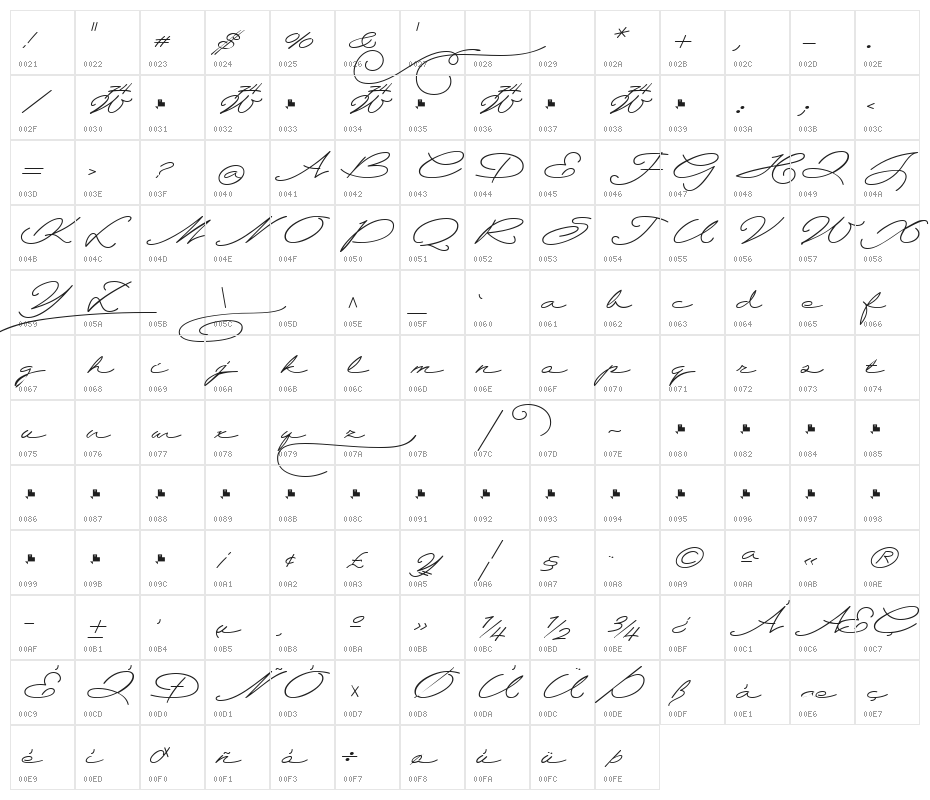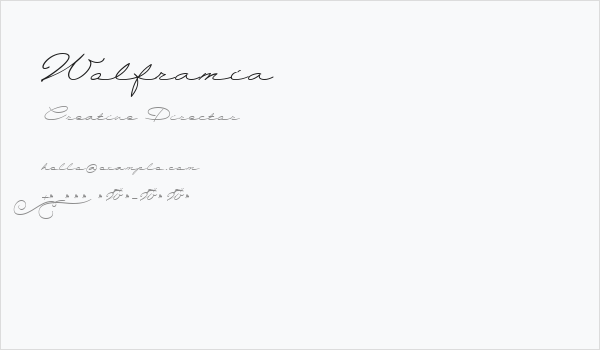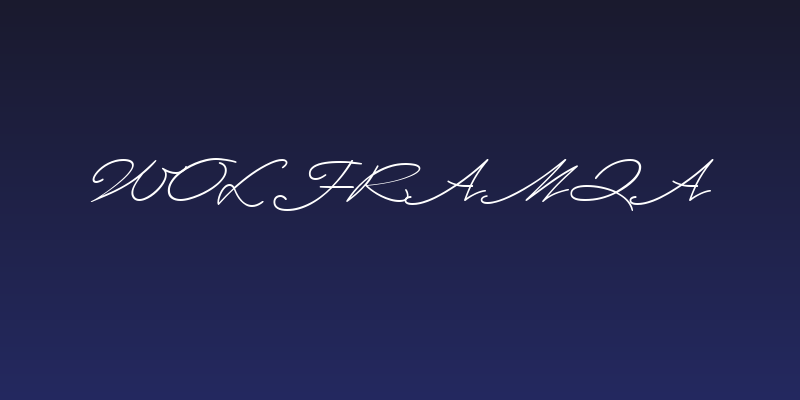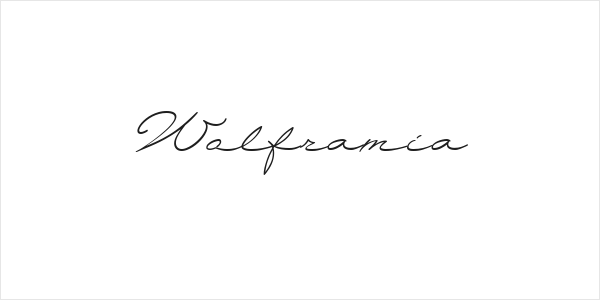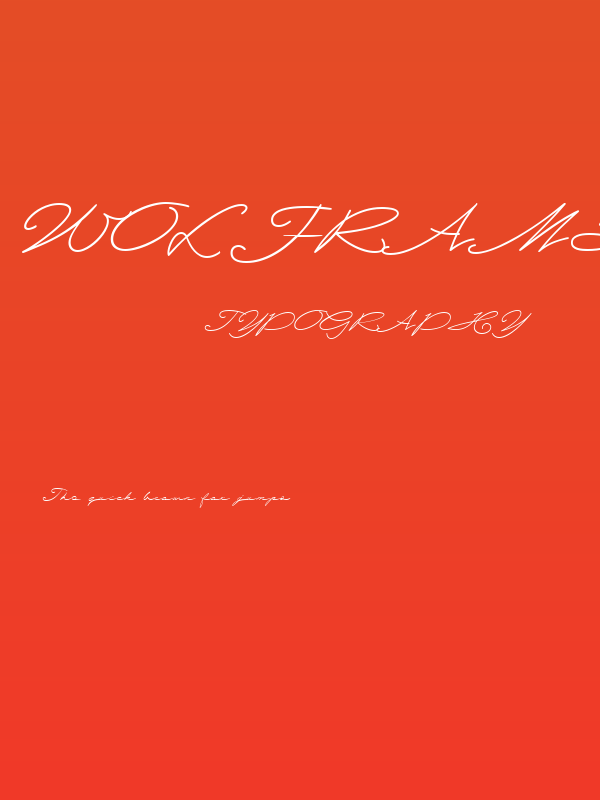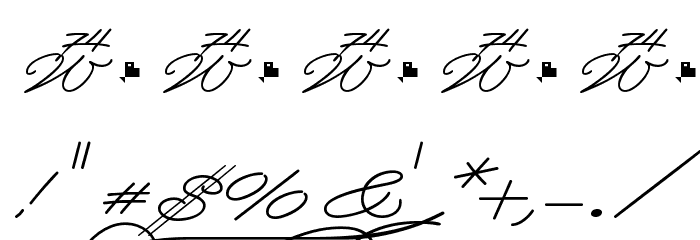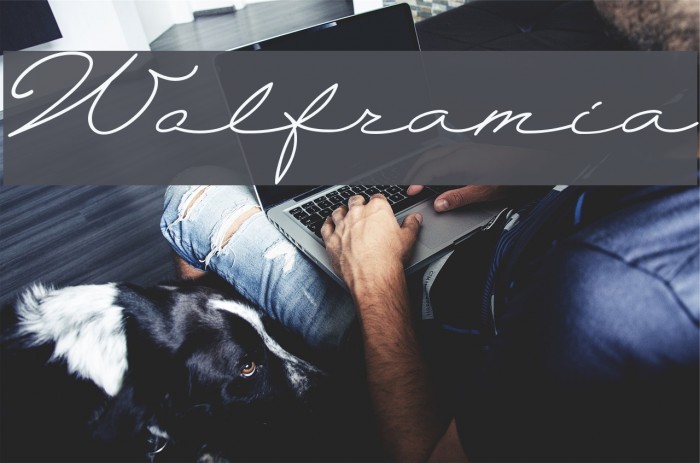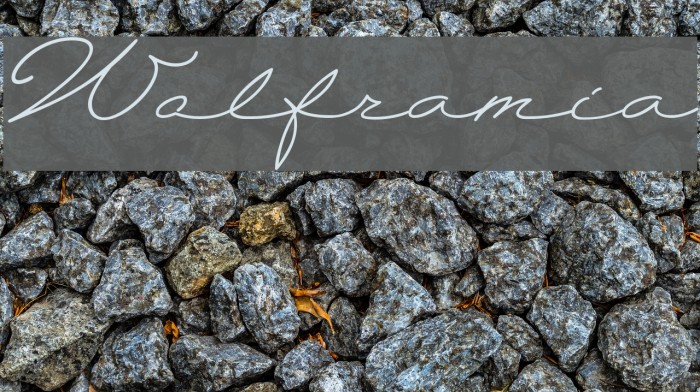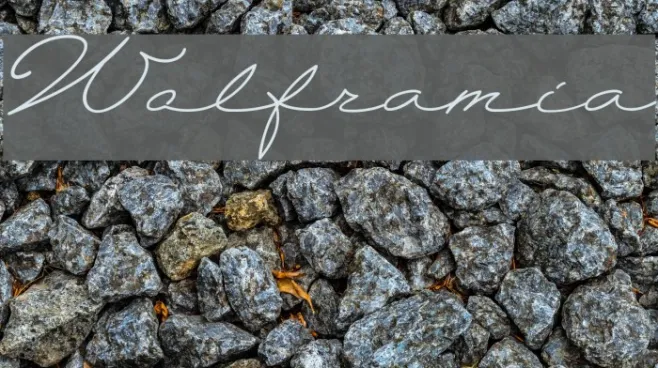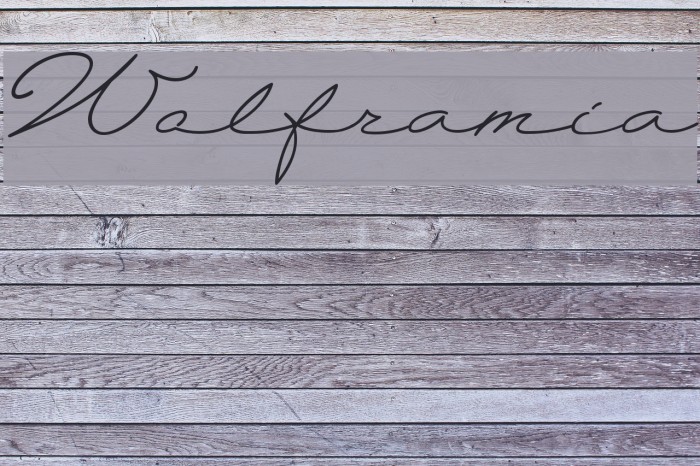
Wolframia Font
Wolframia Description
This elegant script font features flowing, cursive letterforms with a refined and sophisticated appearance. The uppercase letters are characterized by their graceful loops and swashes, while the lowercase letters maintain a consistent fluidity, enhancing the overall elegance. The numbers and special characters are designed with the same attention to detail, ensuring a cohesive look across all elements. The font's delicate strokes and high contrast between thick and thin lines give it a luxurious feel, making it ideal for formal invitations, branding, and decorative purposes.
| Proposed Projects | Ideal for wedding invitations, luxury branding, greeting cards, and decorative signage. |